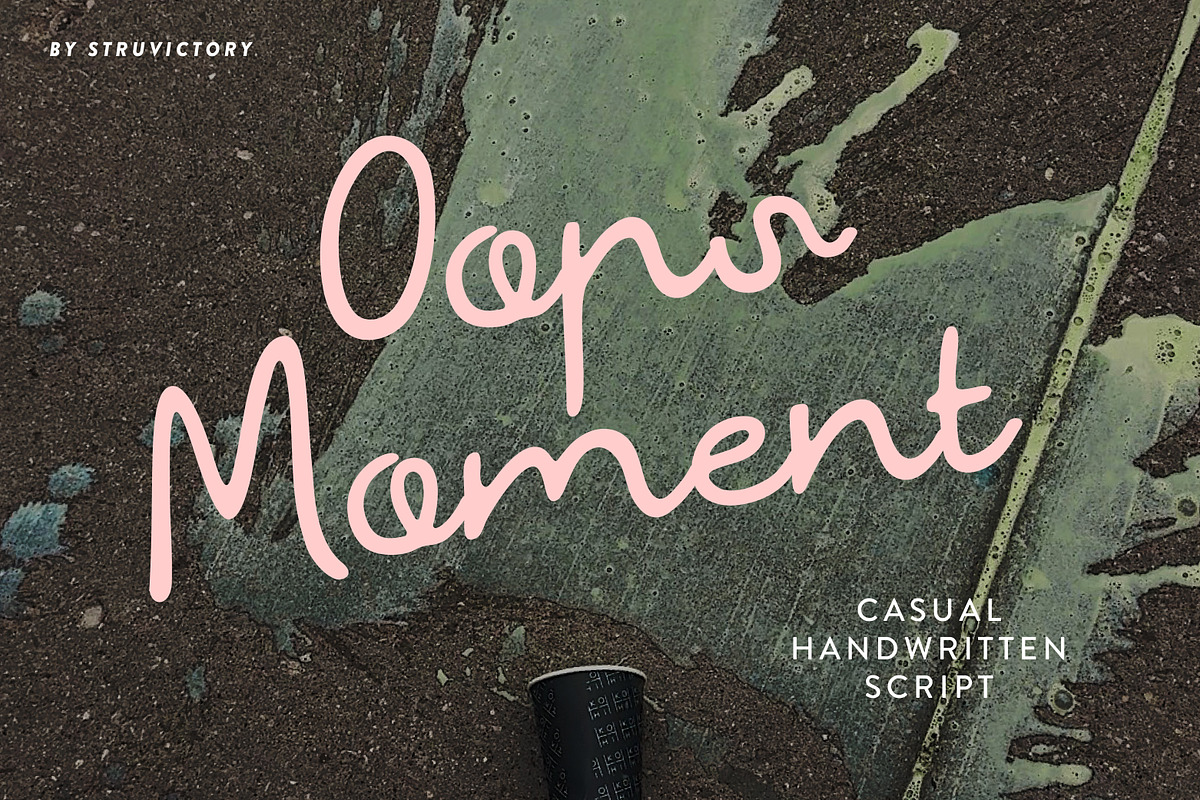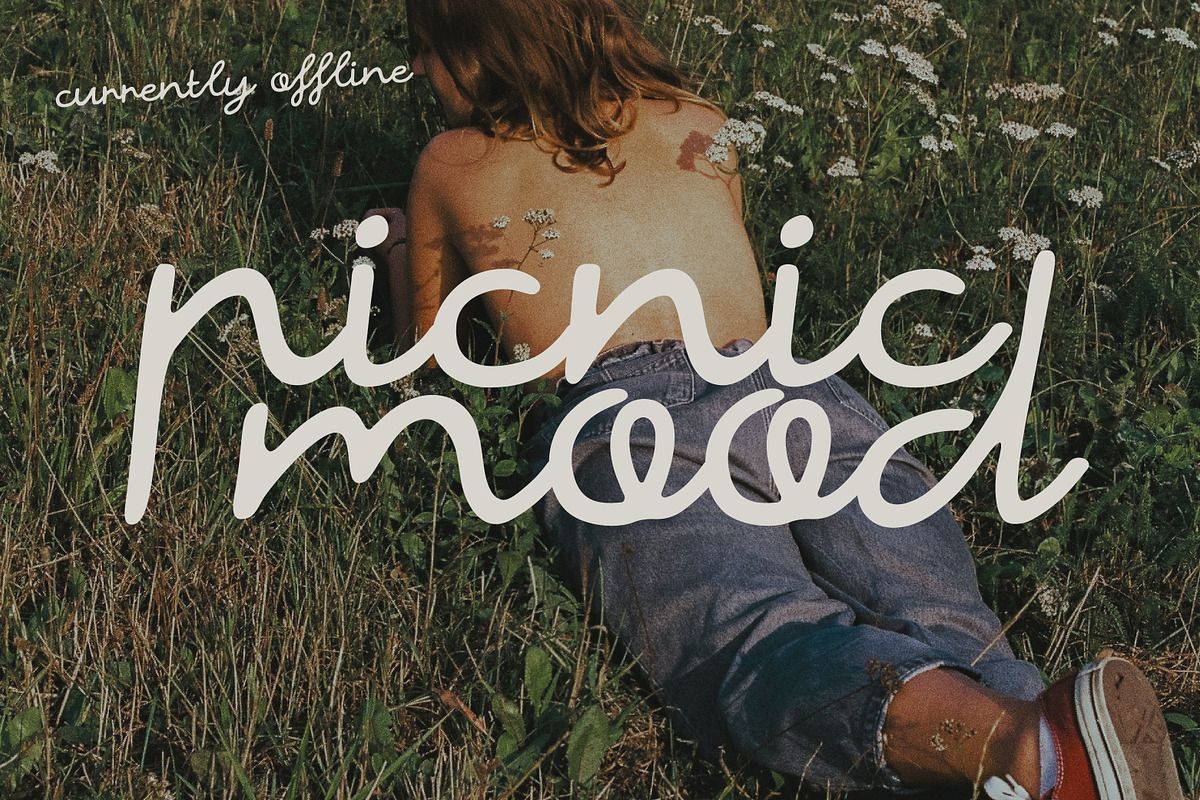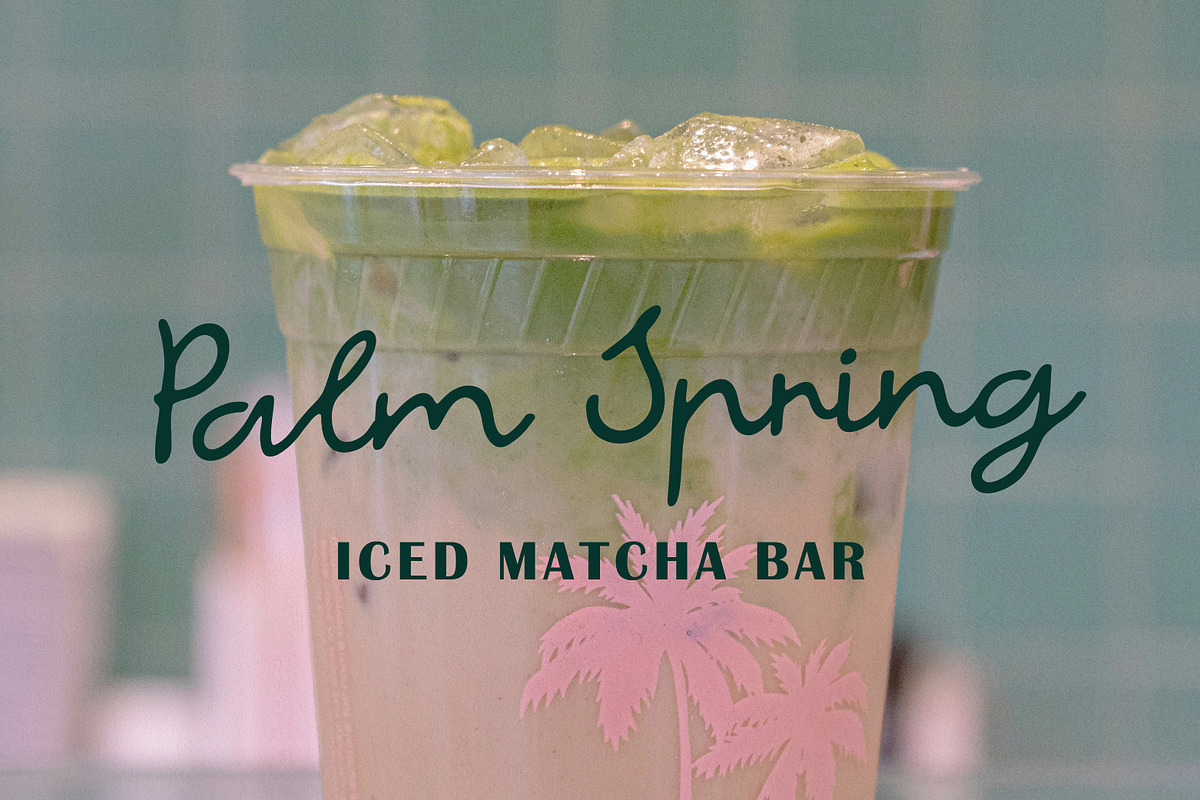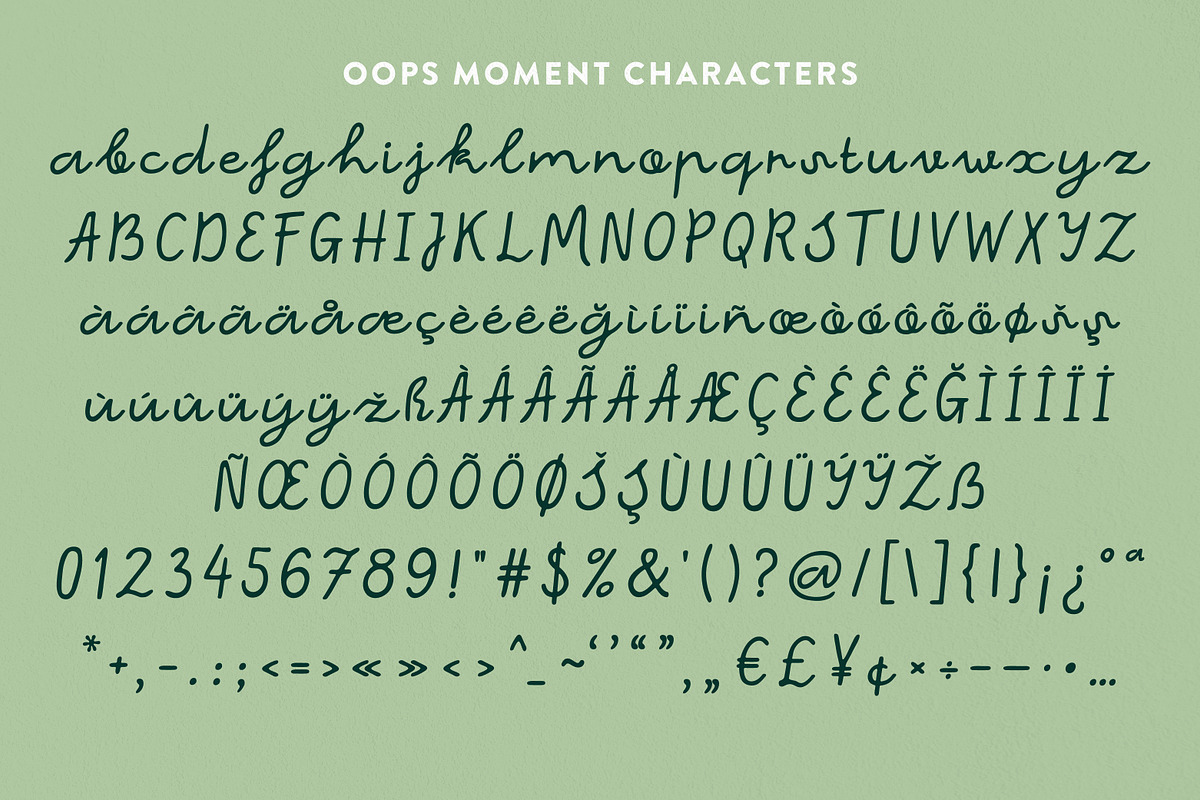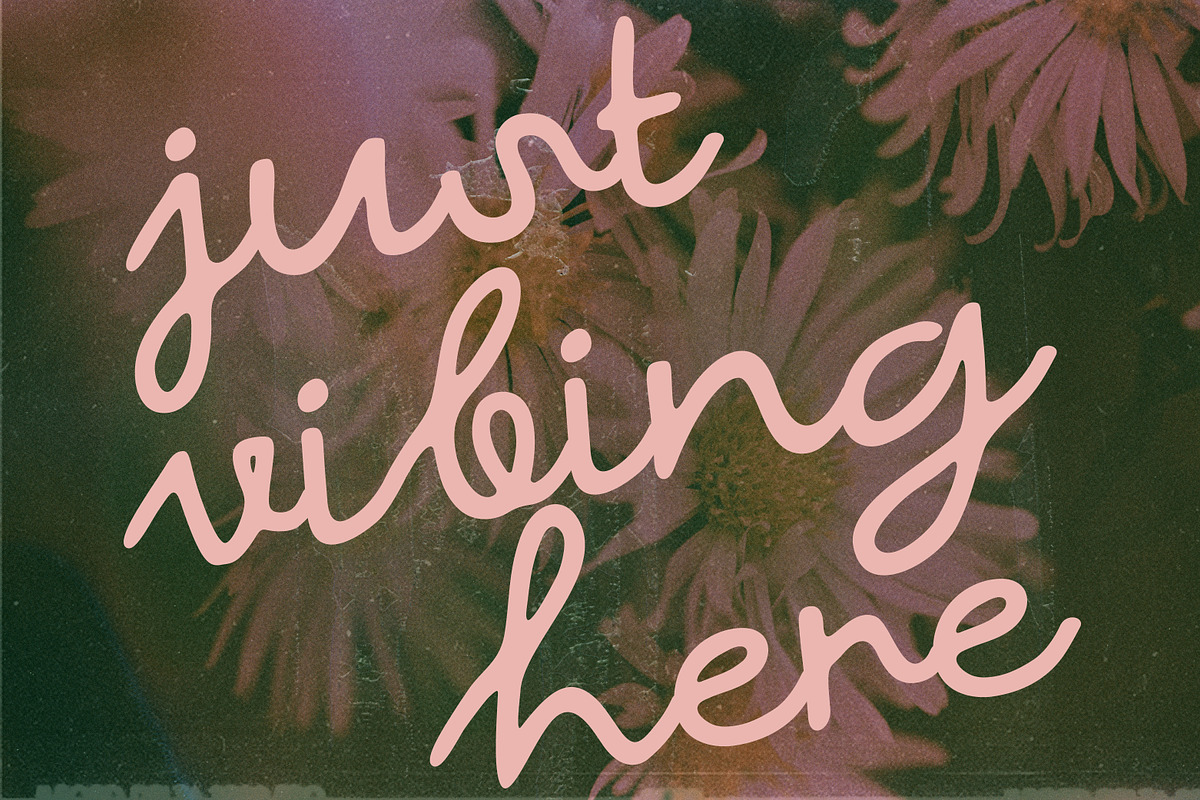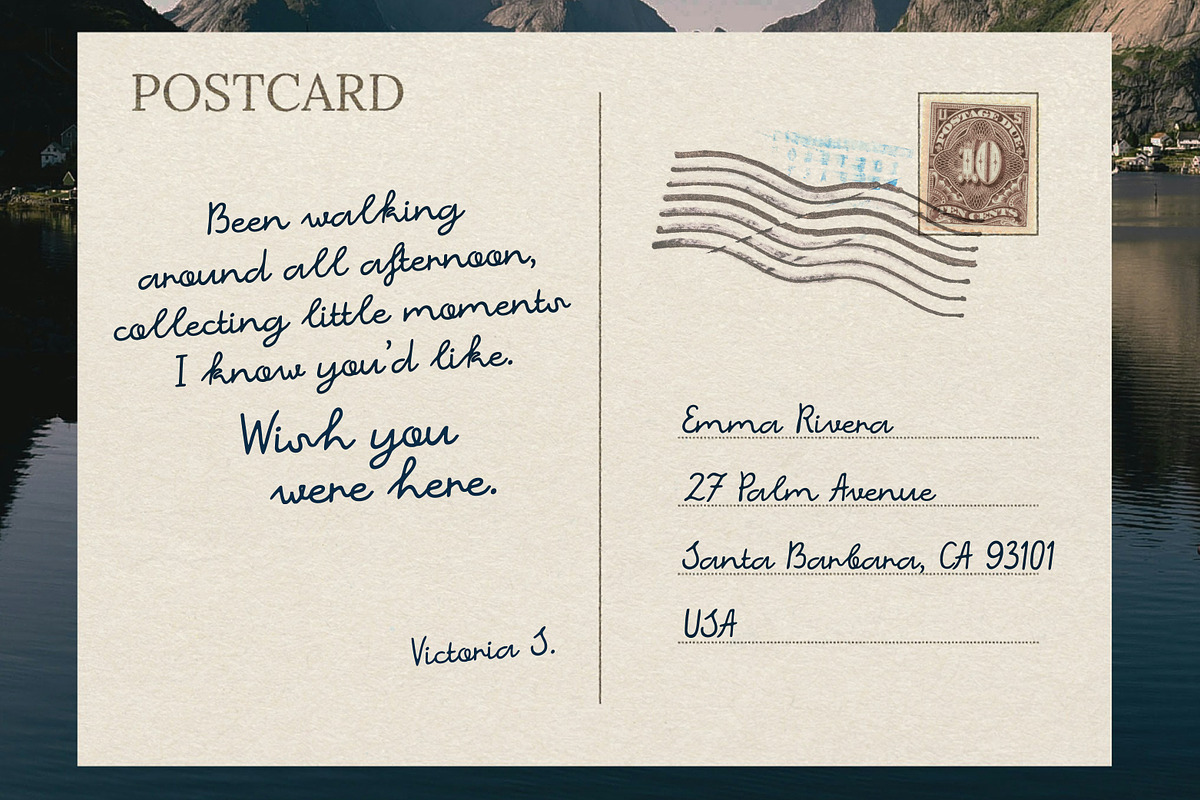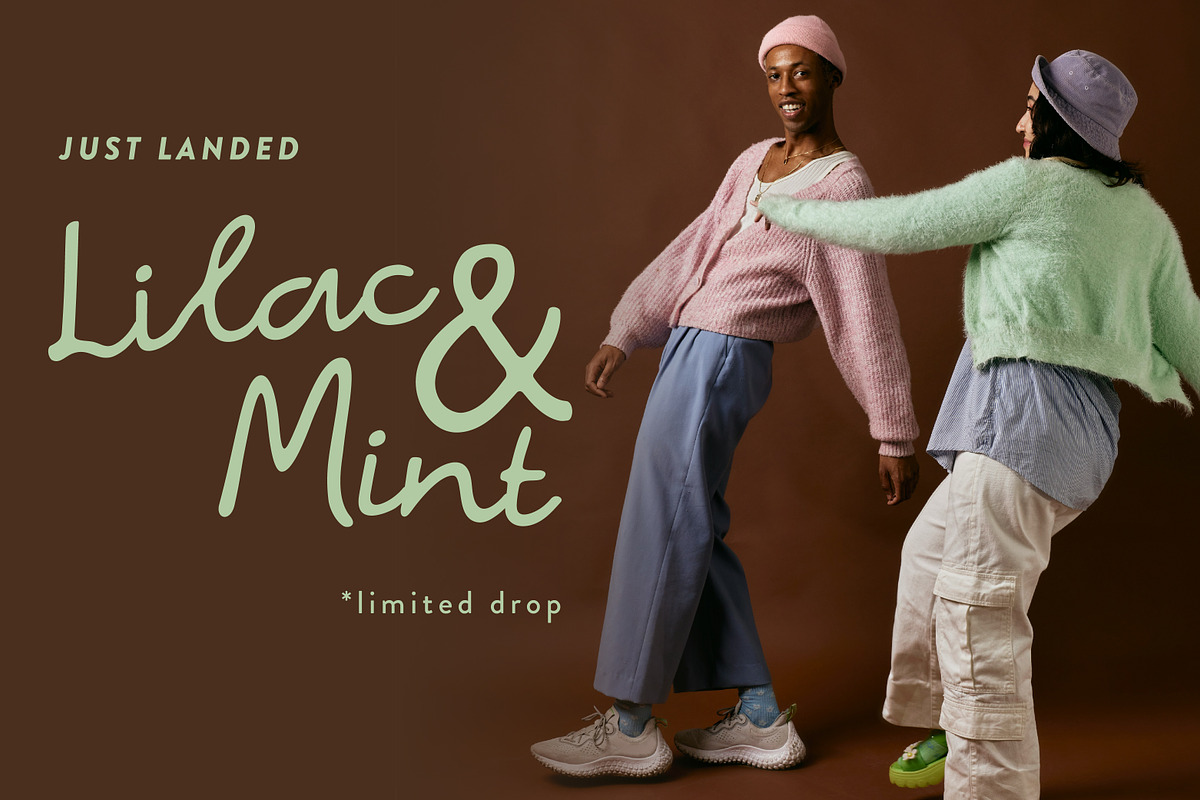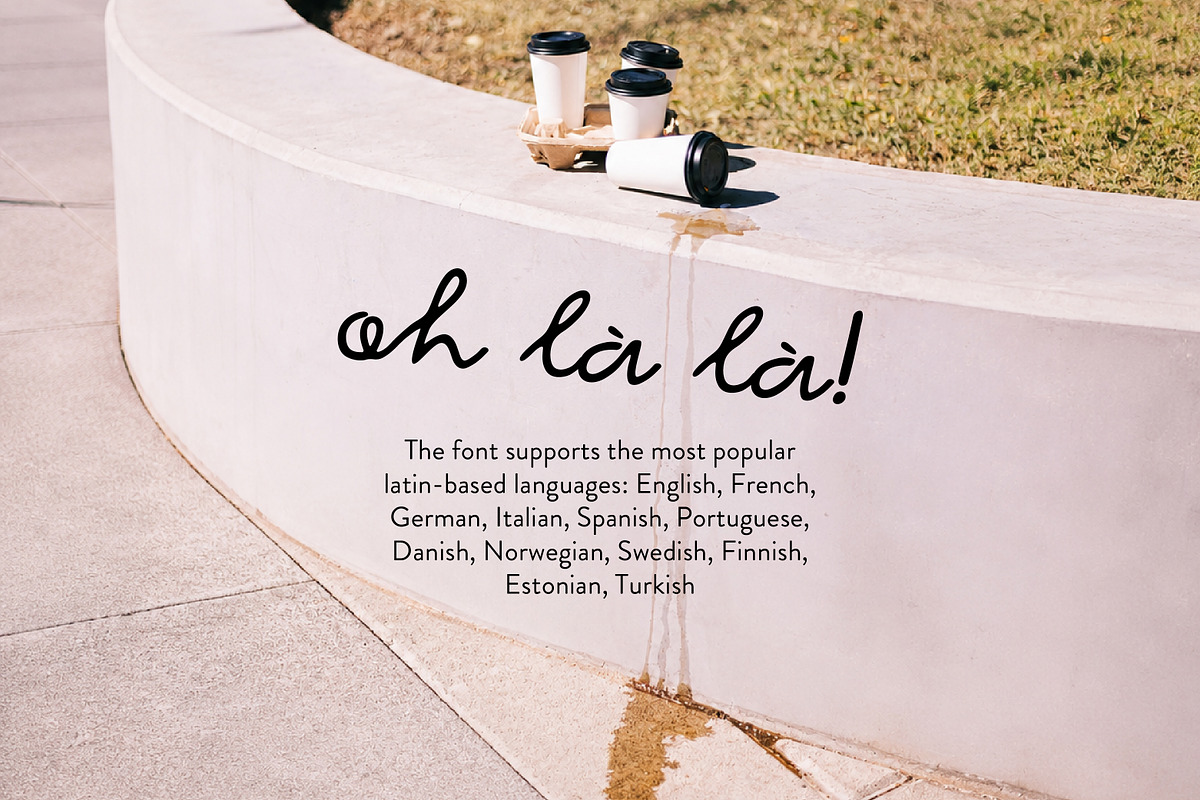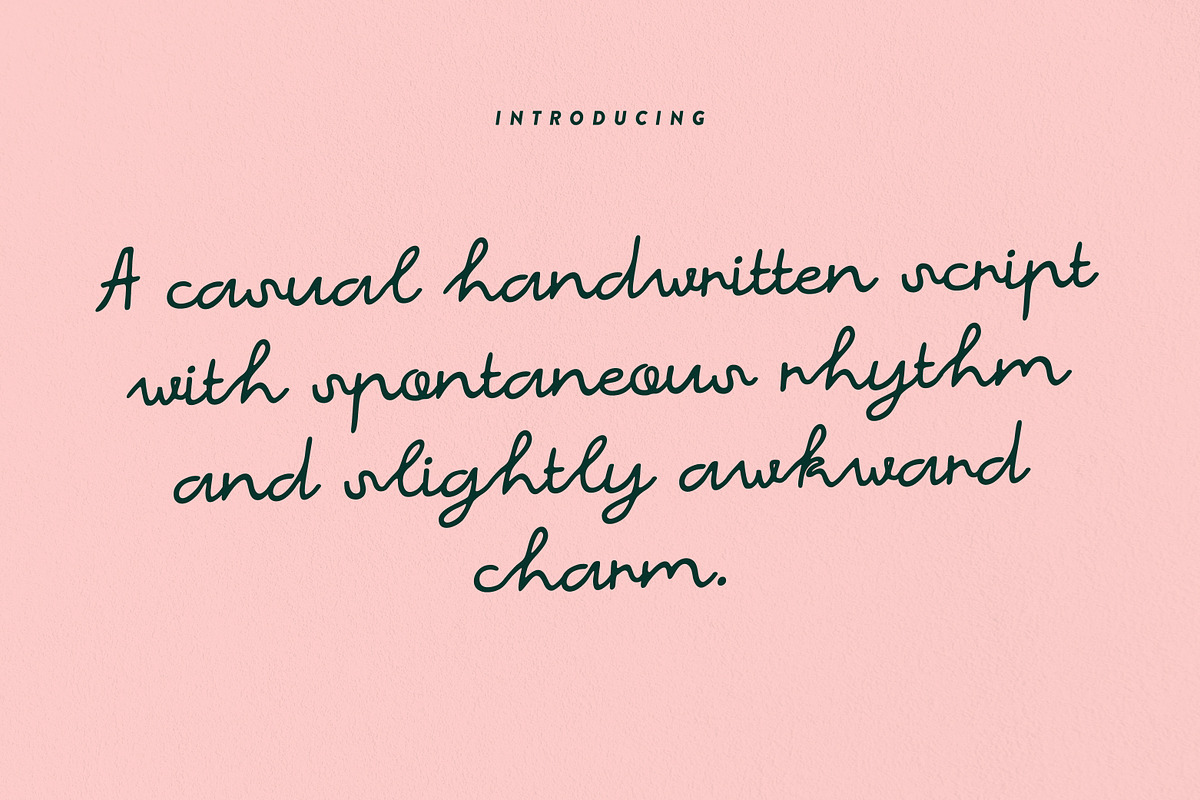
OopsMoment Casual Handwritten Script
Oops Moment is a playful handwritten script with a spontaneous, slightly awkward charm. Inspired by casual notes, late-night thoughts, postcards, café menus, and everyday little moments, this font brings a warm and approachable feel to any design. Its imperfect rhythm, relaxed flow, and lively handwritten texture create a natural, personal look that feels expressive and effortlessly modern. Oops Moment is perfect for branding, social media graphics, fashion campaigns, packaging, posters, café identities, lifestyle content, quotes, invitations, and creative editorial projects.
Oops Moment Script supports the most popular latin-based languages, you can check the symbol you need by typing a couple of words in the font preview box.